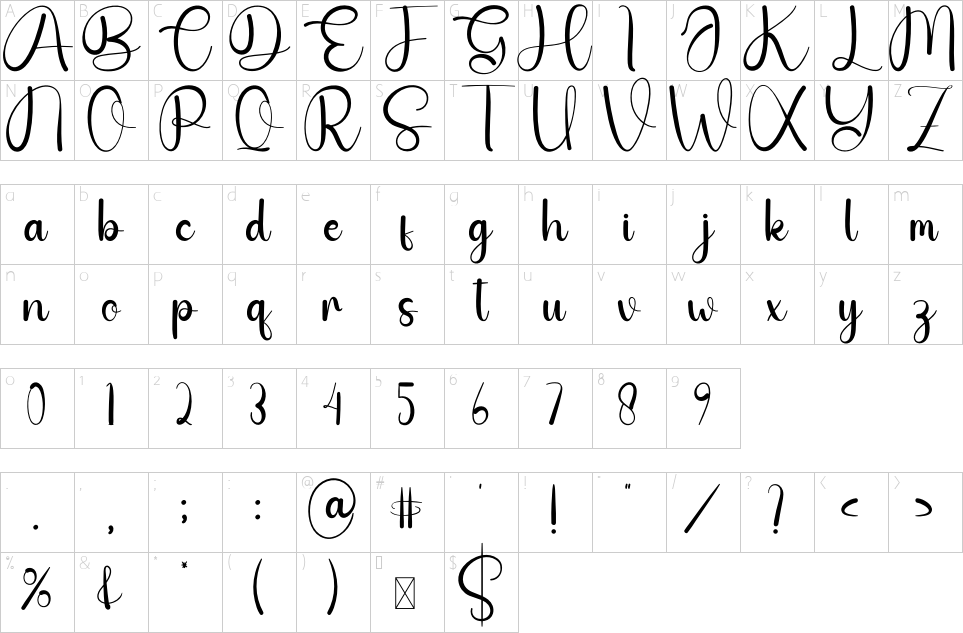
Beautiful Valentine Font
this is a sweet and friendly handwritten display font. Cute and fun, this font is ideal for writing wedding invitations, cards, or any other design that might need a playful touch!